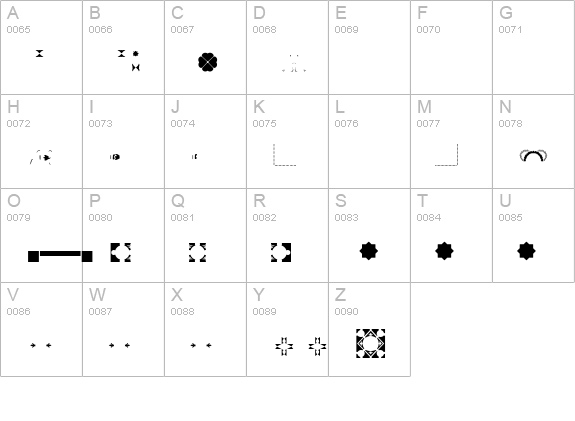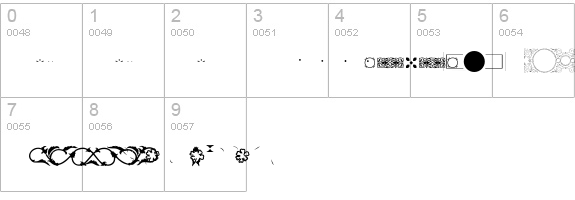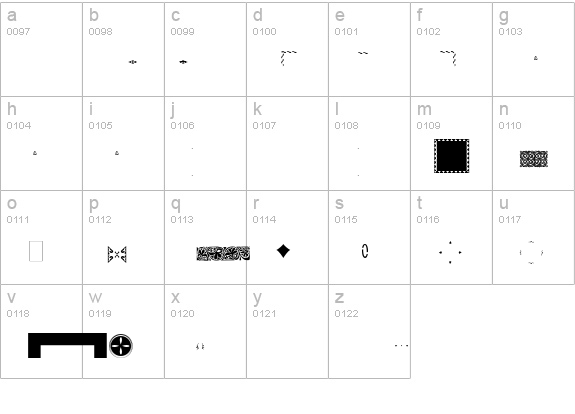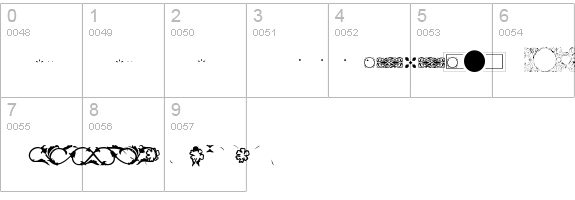
PFOrnmTreasures3-Layer3 font is a beautifully intricate and ornate typeface that is sure to add a touch of elegance to any design project. With its three layers of detailed patterns and flourishes, this font is perfect for creating eye-catching headlines, titles, and decorative elements. What makes PFOrnmTreasures3-Layer3 font even more appealing is that it is completely free to download at FontsMarket.com. This means that you can easily access this stunning font and use it in your designs without any cost. Whether you're working on invitations, posters, logos, or any other creative project, PFOrnmTreasures3-Layer3 font is a versatile and stylish choice that is sure to impress. Download it now and elevate your designs with its unique charm and sophistication.